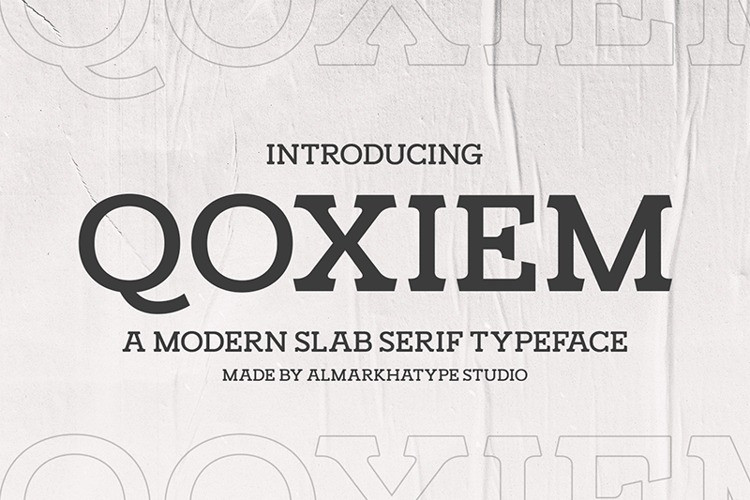
Qoxiem Font
Qoxiem Slab Serif Font is a modern slab serif. It can make your logo more interesting. inspired by the decorative arts and architecture movement
Qoxiem fonts is perfect for your project and allows you to create designs, headlines, posters, logos, badges, t-shirts and many more that are beautiful. It is also best used for posts, logos, posters, certificates, labels and more.